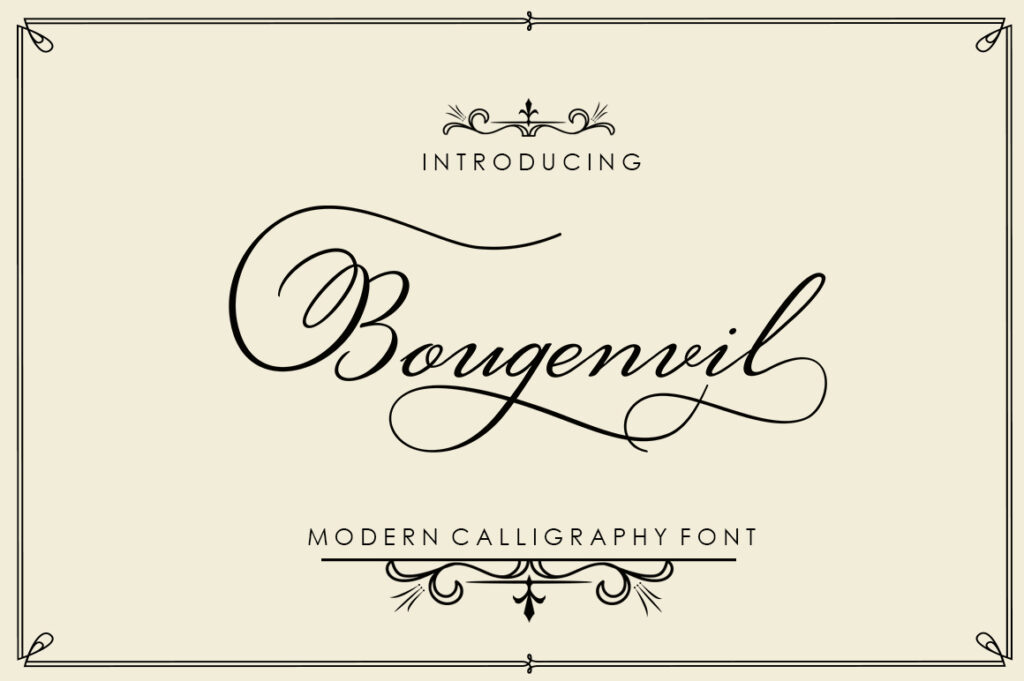
Bougenvil Font: A Elegant Calligraphy Script Font
The Bougenvil font is a stunning calligraphy script font that has taken the design world by storm. With its beautiful alternative characters, this font is a perfect blend of copper calligraphy and handlettering styles. In this article, we will explore the features and characteristics of the Bougenvil font, and why it’s a popular choice among designers and typography enthusiasts.
What is Bougenvil Font?
Bougenvil is a calligraphy script font that is designed to bring style and elegance to any design project. This font is a mixture of copper calligraphy with handlettering style, making it a unique and eye-catching choice for designers. The font comes with beautiful alternative characters, which allow designers to add a personal touch to their work.
Key Features of Bougenvil Font
- Feminine and Sensual: Bougenvil font has a feminine and sensual feel to it, making it perfect for designs that require a touch of elegance and sophistication.
- Glamorous and Simple: The font has a glamorous and simple design, making it easy to read and use in a variety of design projects.
- Beautiful Alternative Characters: Bougenvil font comes with beautiful alternative characters, which allow designers to add a personal touch to their work.
- Readable: The font is very readable, making it perfect for body text and headlines.
Design and Characteristics
The Bougenvil font is designed to be elegant and sophisticated. The font has a copper calligraphy feel to it, with flowing lines and curves that give it a sense of movement and fluidity. The handlettering style adds a personal touch to the font, making it feel more human and less machine-like.
Design Characteristics of Bougenvil Font
- Flowing Lines and Curves: The font has flowing lines and curves that give it a sense of movement and fluidity.
- Copper Calligraphy Feel: The font has a copper calligraphy feel to it, which gives it a sense of elegance and sophistication.
- Handlettering Style: The handlettering style adds a personal touch to the font, making it feel more human and less machine-like.
Uses of Bougenvil Font
The Bougenvil font is a versatile font that can be used in a variety of design projects. Here are some of the most popular uses of the font:
Popular Uses of Bougenvil Font
- Logos and Branding: The font is perfect for logos and branding projects that require a touch of elegance and sophistication.
- Wedding and Event Designs: The font is popular for wedding and event designs, such as invitations, programs, and menus.
- Packaging and Product Design: The font can be used in packaging and product design to add a touch of elegance and sophistication.
- Advertising and Marketing: The font can be used in advertising and marketing materials, such as brochures, flyers, and posters.
Why Choose Bougenvil Font?
There are many reasons why designers and typography enthusiasts choose the Bougenvil font. Here are some of the most popular reasons:
Why Choose Bougenvil Font?
- Elegant and Sophisticated: The font is elegant and sophisticated, making it perfect for designs that require a touch of luxury and refinement.
- Unique and Eye-catching: The font is unique and eye-catching, making it perfect for designs that require a personal touch.
- Readable and Versatile: The font is very readable and versatile, making it perfect for a variety of design projects.
In conclusion, the Bougenvil font is a stunning calligraphy script font that is perfect for designers and typography enthusiasts who require a touch of elegance and sophistication in their work. With its beautiful alternative characters, flowing lines and curves, and handlettering style, this font is a unique and eye-catching choice for a variety of design projects.